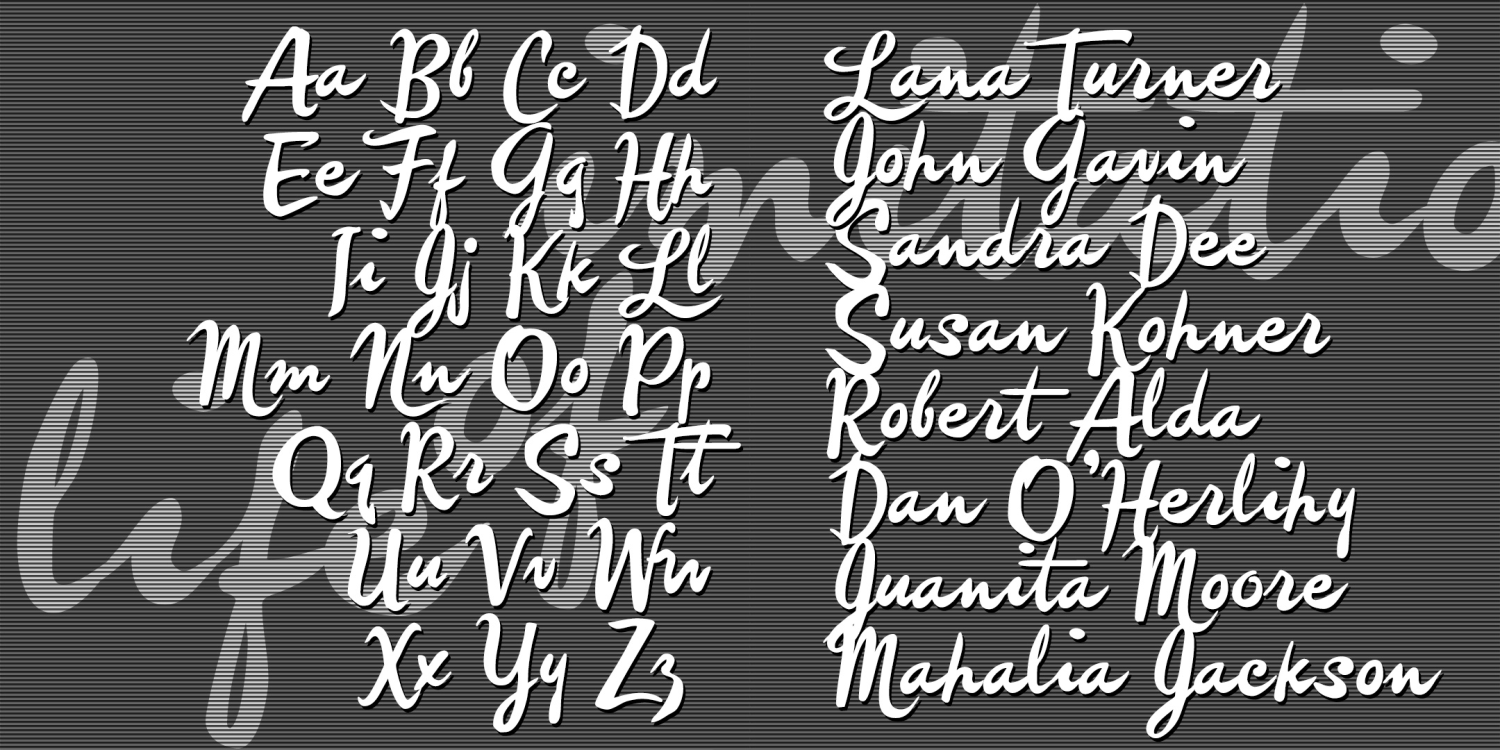
Imitation
IMITATION is a free-spirited brush script, more a fashion statement than the work of a diligent sign painter.
Imitation was inspired by the credits of two soapy Lana Turner films, Imitation of Life (1959) and Madame X (1963). They are credited to different art directors so I don't know who originated the style.
IMITATION includes many alternate characters so you can do an all-lowercase look that looks more hand-lettered.
VERSION 4.0 uses Opentype features to make these useful alternates easier to use, as well as an expanded character set and improved spacing and kerning.